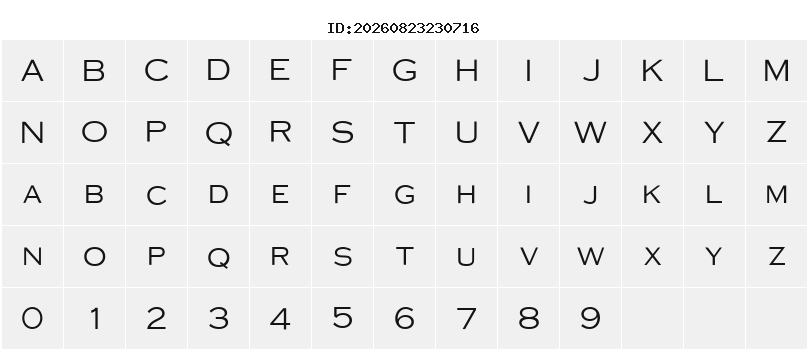
Sans-Copperplate Gothic Preview
About Sans-Copperplate Gothic.ttf
Sans-Copperplate Gothic.ttf is a modern, elegant sans-serif font designed for ultimate readability and visual harmony. Perfect for branding, headlines, web design, and print materials.